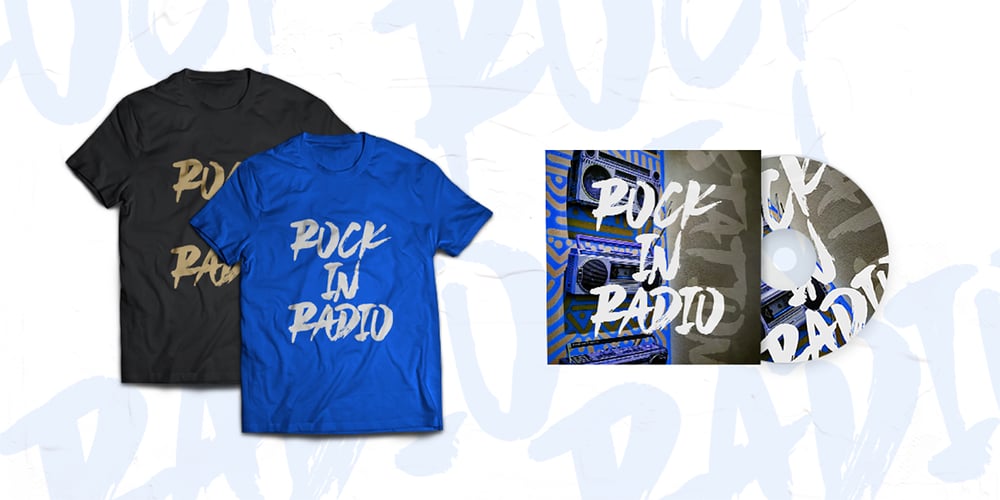
Never Settle Font Family was designed by Eko Kurniawan and published by Atom. Never Settle contains 1 styles and family package options. Never Settle is a bold and powerful handwritten font with a cool vibe. It will turn any design idea into a true standout! NEVER SETTLE to give the best to you!